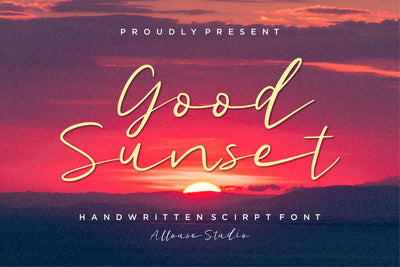
Good Sunset - Handwritten Script Font
Good Sunset is a Handwritten Script Font.
Good Sunset is perfect for product packaging, branding project, megazine, social media, wedding, or just used to express words above the background.